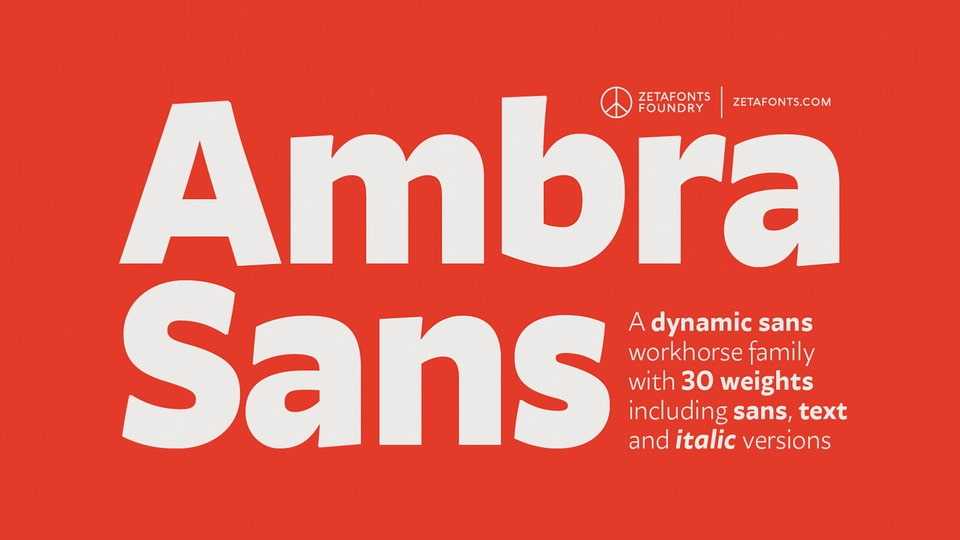
Download Ambra Sans font, a humanist sans typeface, drawn around a lively, expressive skeleton but developed with a contemporary, post-digital sensibility that implies low contrast and tall x-height. Ambra Sans provides a useful tool to graphic designers with branding and editorial needs,
Designer: Zetafonts